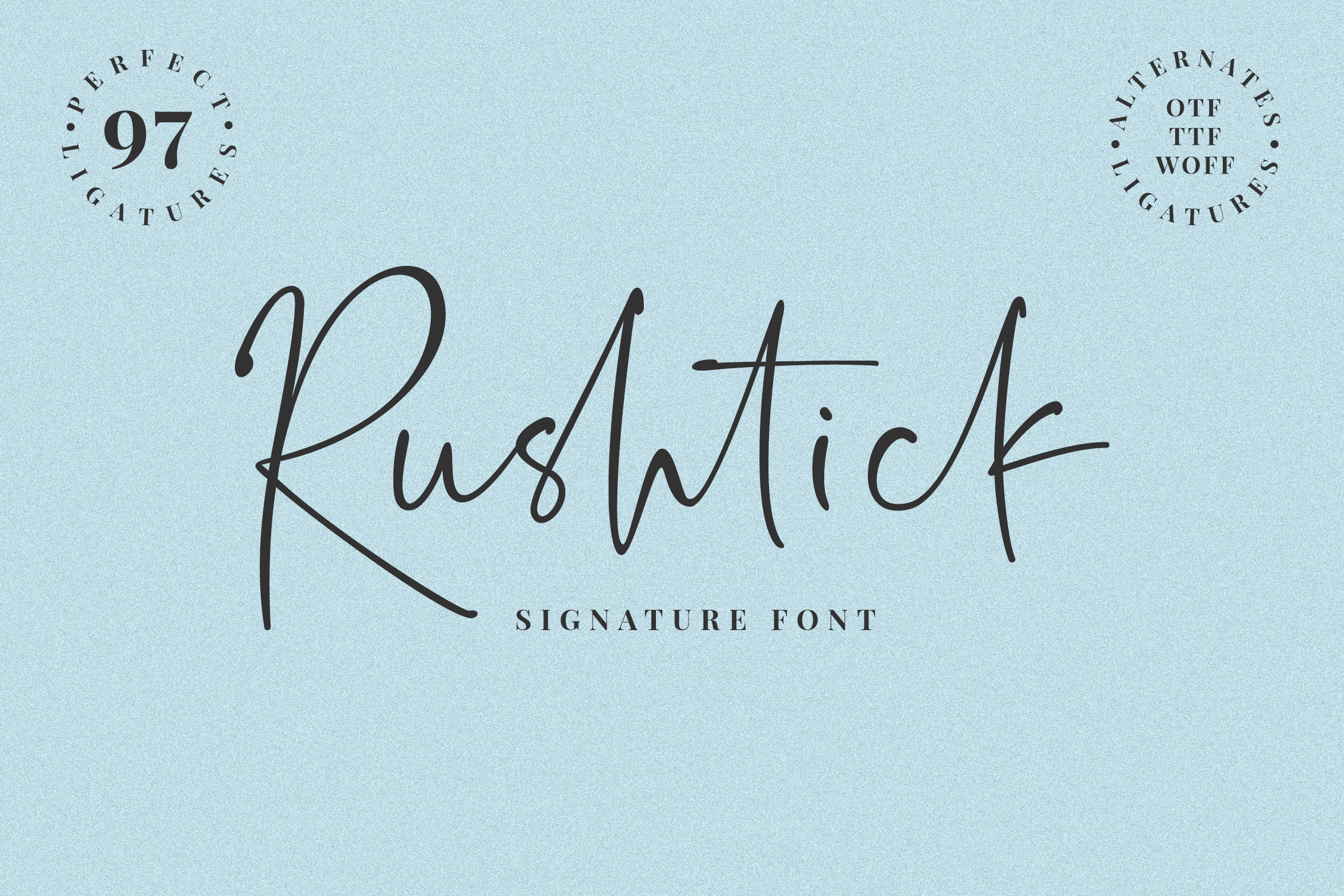
Rushtick Signature Font
Rushtick is a signature and sophisticated style font, perfect for packaging design, branding, social media, blogging, and cards.
Rushtick supports 13 languages: Afrikaans, Albanian, Danish, Dutch, French, German, Icelandic, Italian, Norwegian, Portuguese, Spanish, Swedish, Zulu. Covers all upper and lower case letters, punctuation marks, numbers, 97 perfect ligatures.
The function of Ligatures is to connect letters to look realistic as if you were writing it yourself.